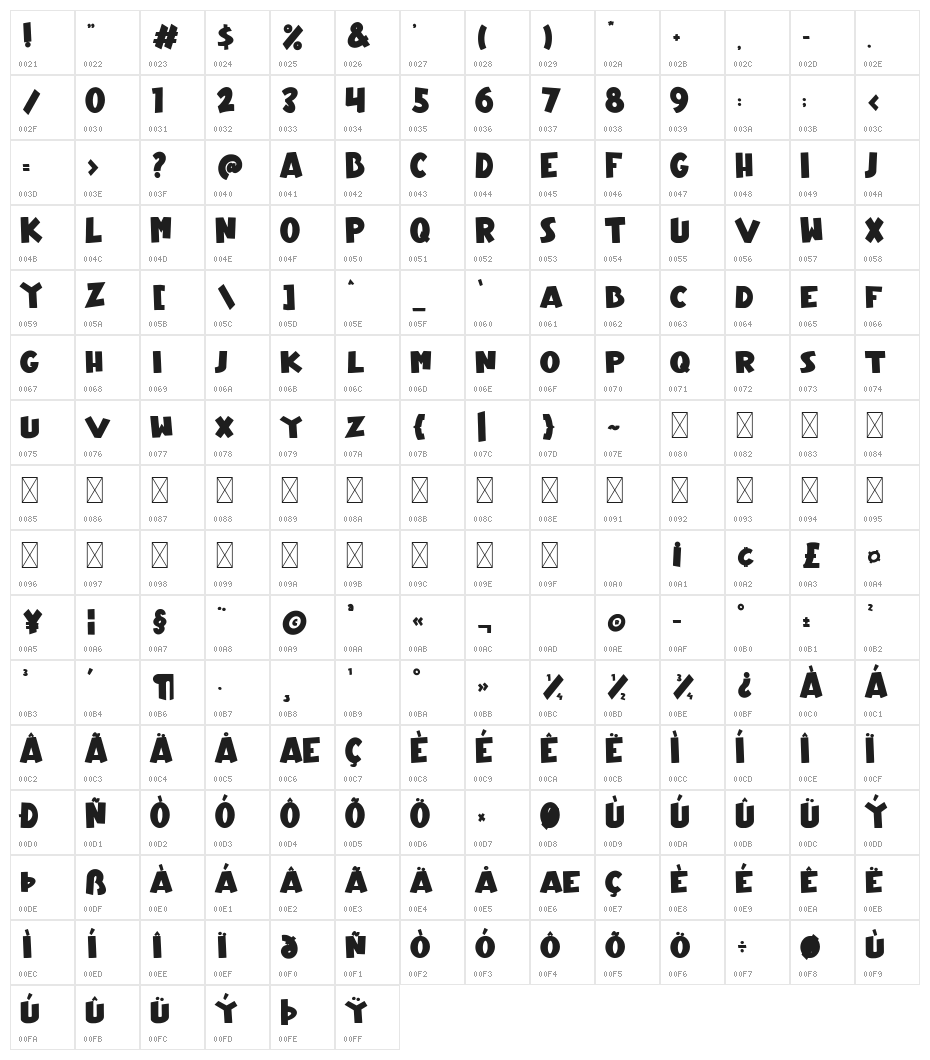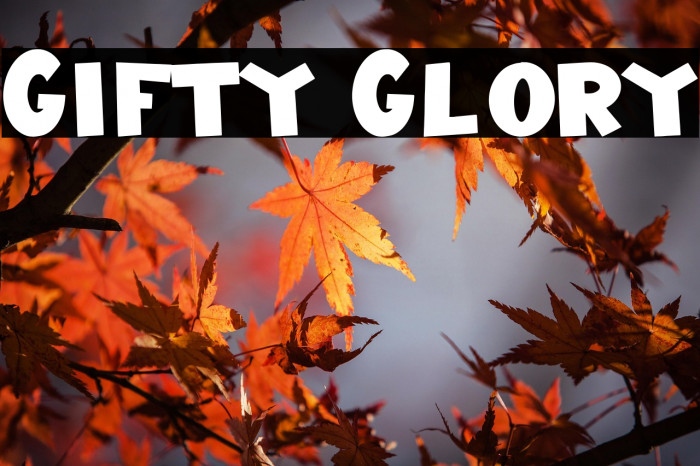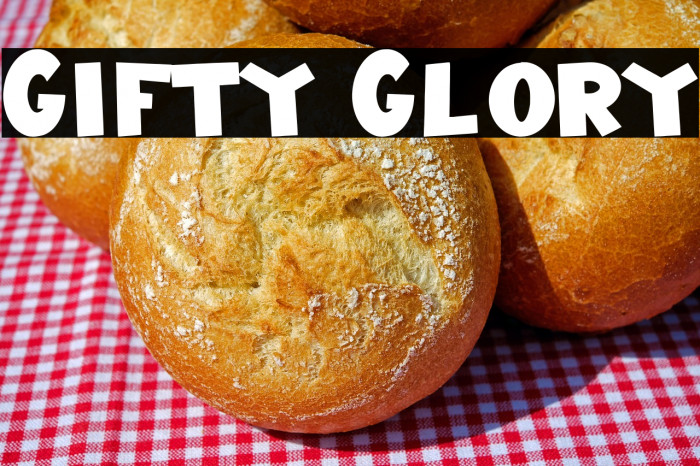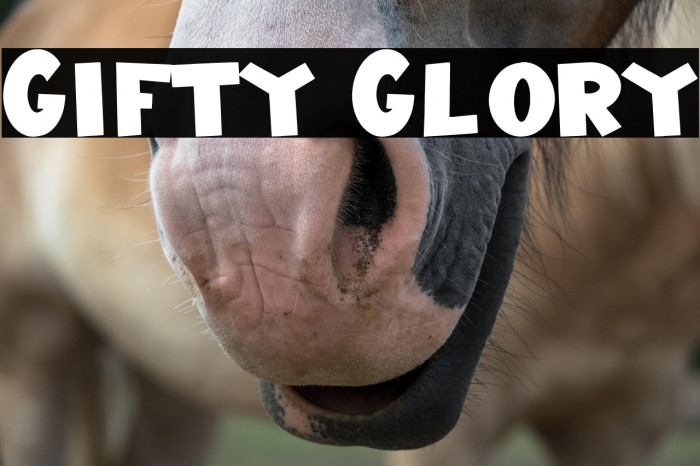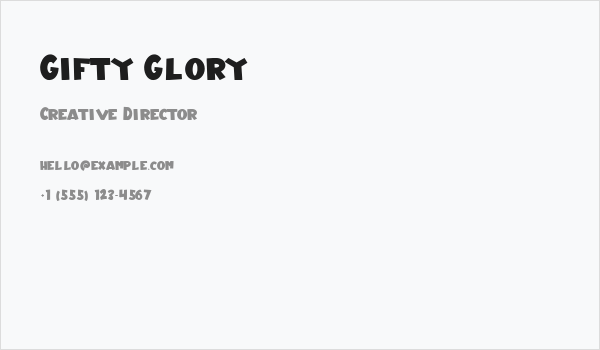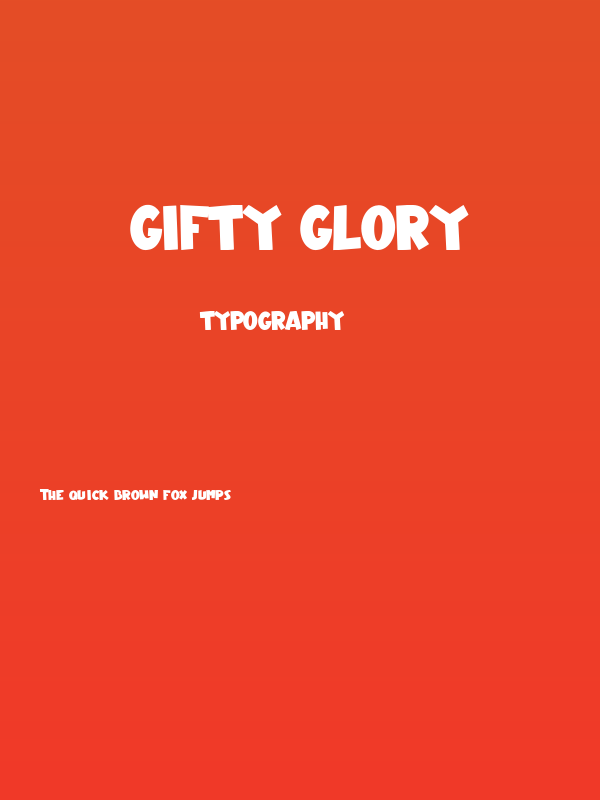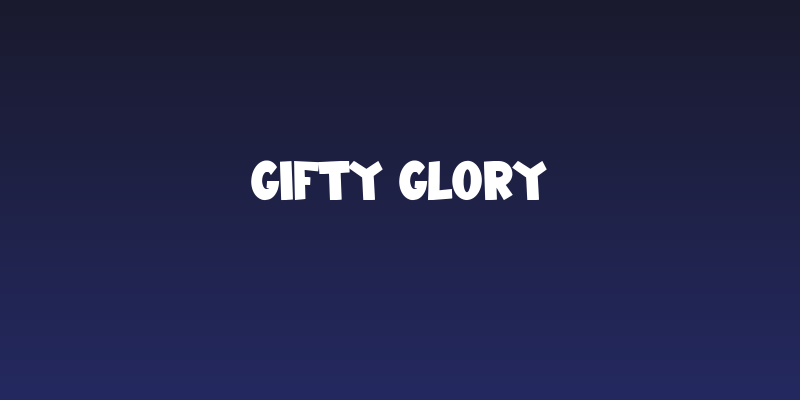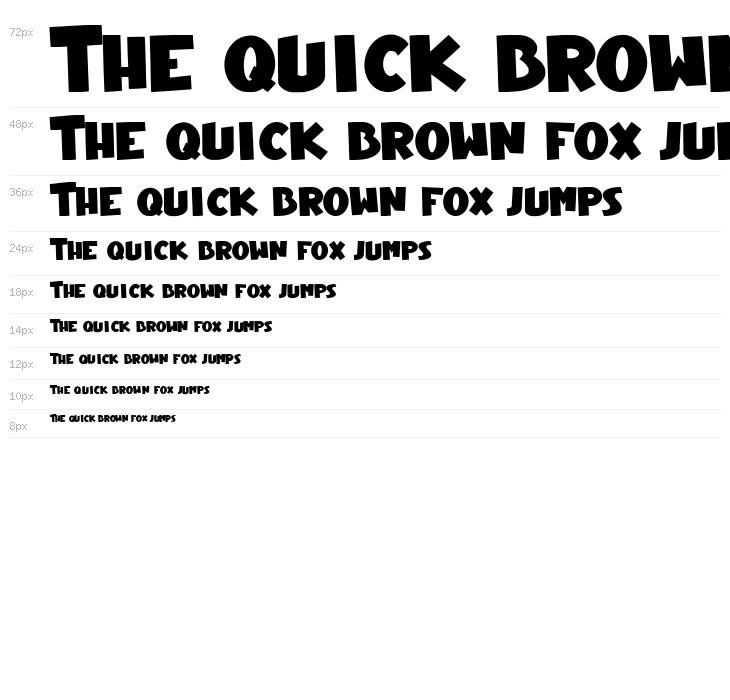
Gifty Glory Font
Gifty Glory Description
This font features a bold and playful design, characterized by its thick, uneven strokes and quirky, irregular shapes. The letters have a hand-drawn, cartoonish appearance, giving them a lively and energetic feel. The uppercase and lowercase letters maintain a consistent style, with exaggerated curves and angles that add to the font's whimsical nature. The numbers and special characters follow the same playful aesthetic, making the font suitable for creative and fun projects. Its boldness ensures high visibility, making it ideal for eye-catching designs.
| Overall Style | Playful, Cartoonish, Energetic |
| Proposed Projects | Ideal for children's books, playful branding, party invitations, and comic-style graphics. |